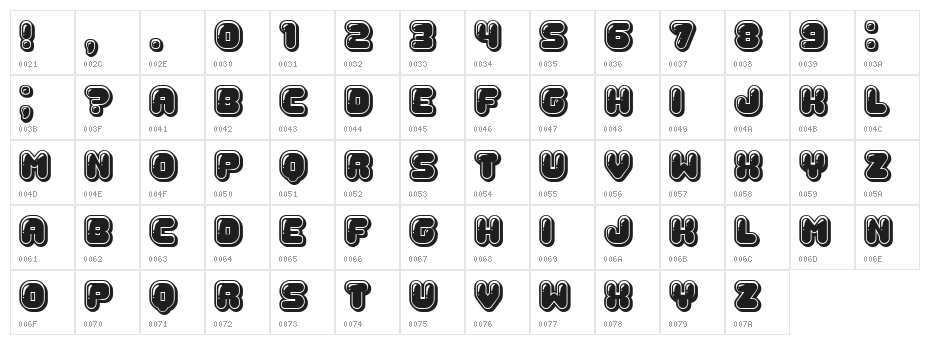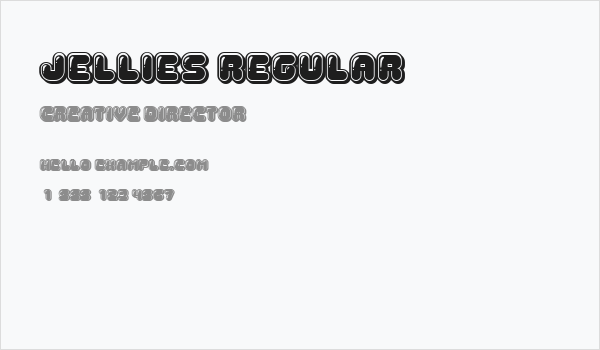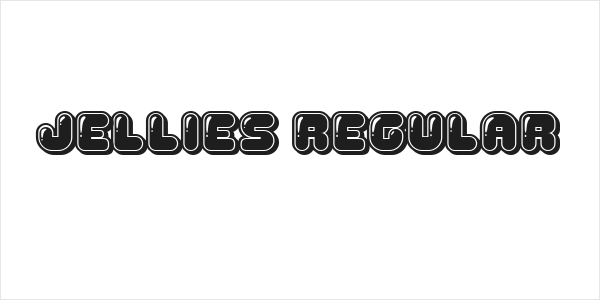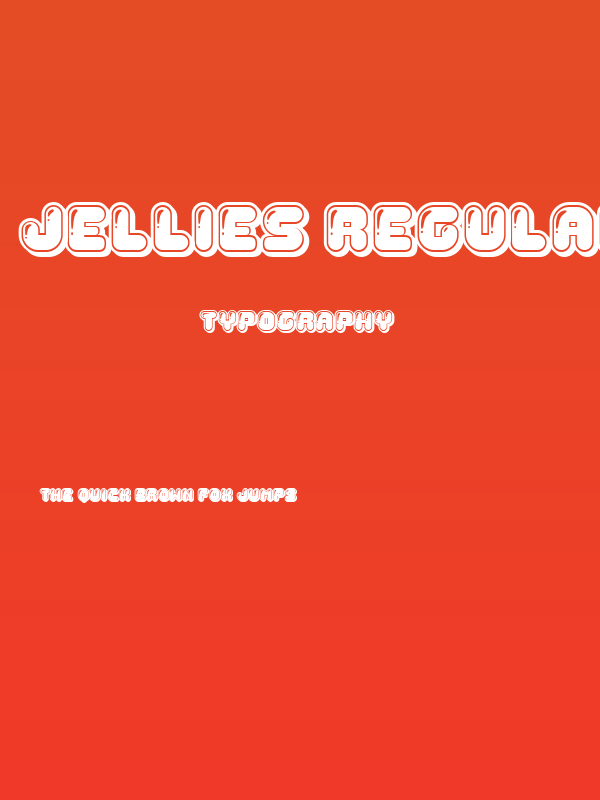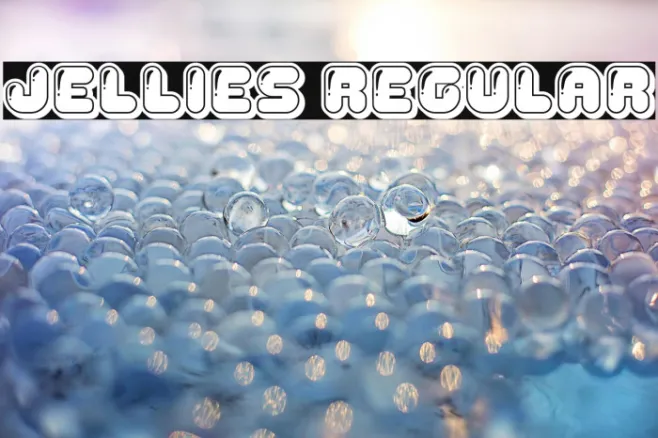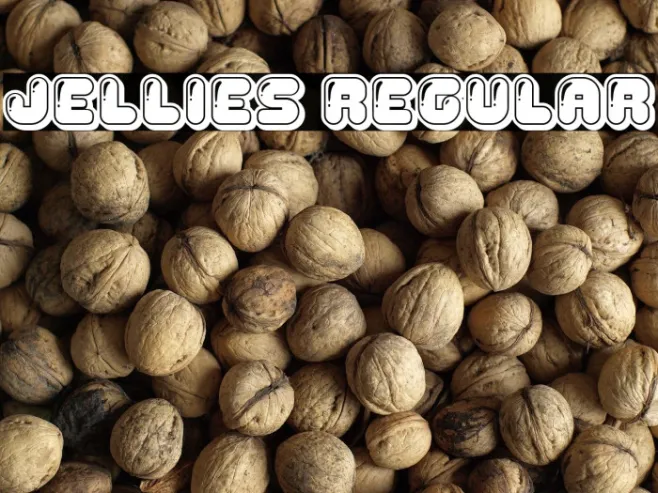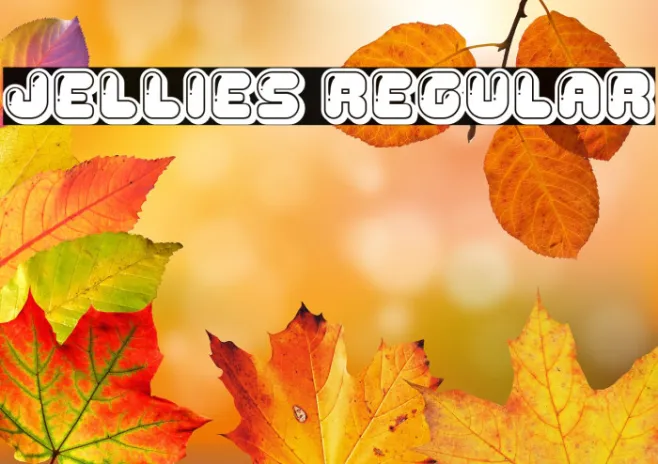
Jellies Regular Font
Jellies Regular Description
This playful and bold font features a bubble-like design with thick, rounded edges and a distinct outline that gives each character a three-dimensional appearance. The letters are evenly spaced, maintaining a consistent width throughout, which enhances readability while adding a whimsical touch. The numbers and special characters follow the same design principles, ensuring a cohesive look across all text elements. Its unique style makes it ideal for projects that require a fun and engaging aesthetic, such as children's books, playful branding, or eye-catching posters.
| Proposed Projects | Ideal for children's books, playful branding, eye-catching posters, and creative invitations. |